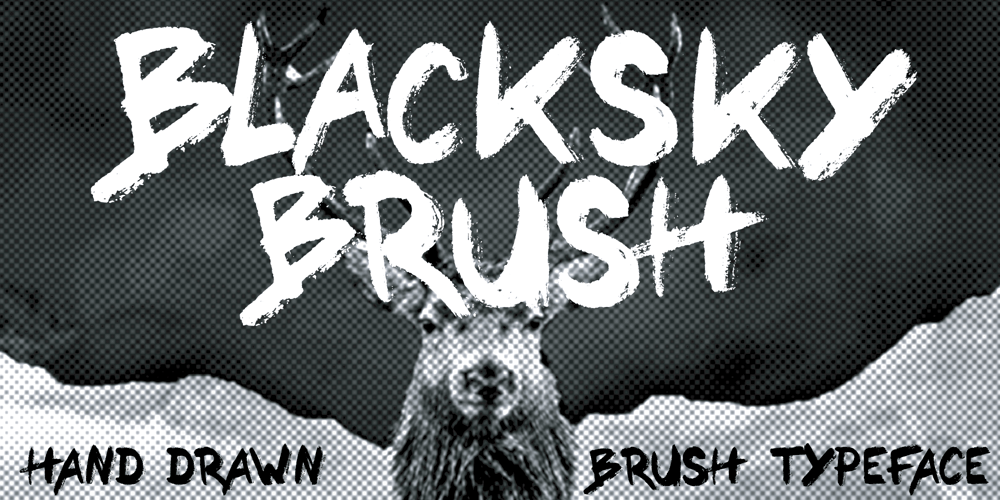
Blacksky Brush Font Family was designed by Toby Bennett and published by Salty Sweet Creative. Blacksky Brush contains 1 styles and family package options. Blacksky Brush is a bold hand draw brush effect typeface with a grungy style that looks epic on posters and graphics!